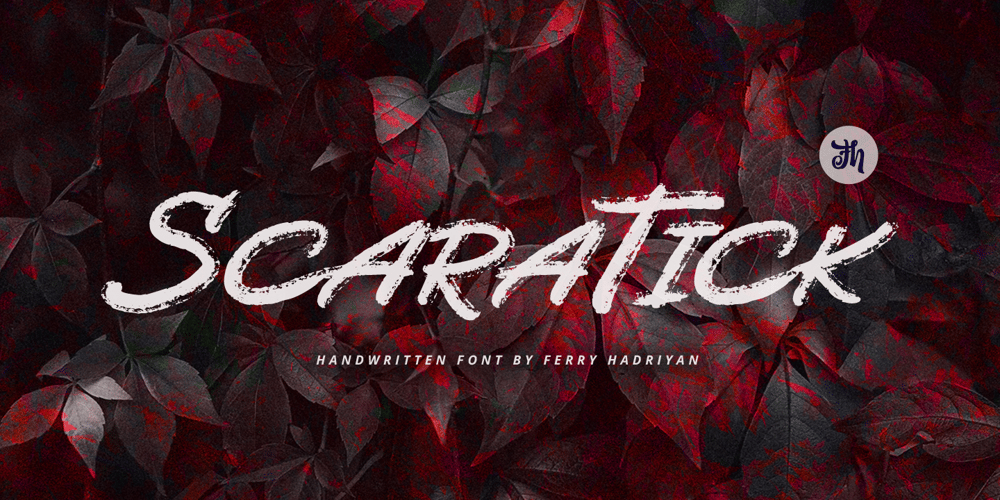
FH Scaratick Font Family was designed by Ferry Hadriyan and published by FHFont. FH Scaratick contains 2 styles and family package options. Scaratick font is a script font family with a handwritten and grung dry brush style, with the OpenType feature included. Suitable for design, element design, event, logo, and awesome work.